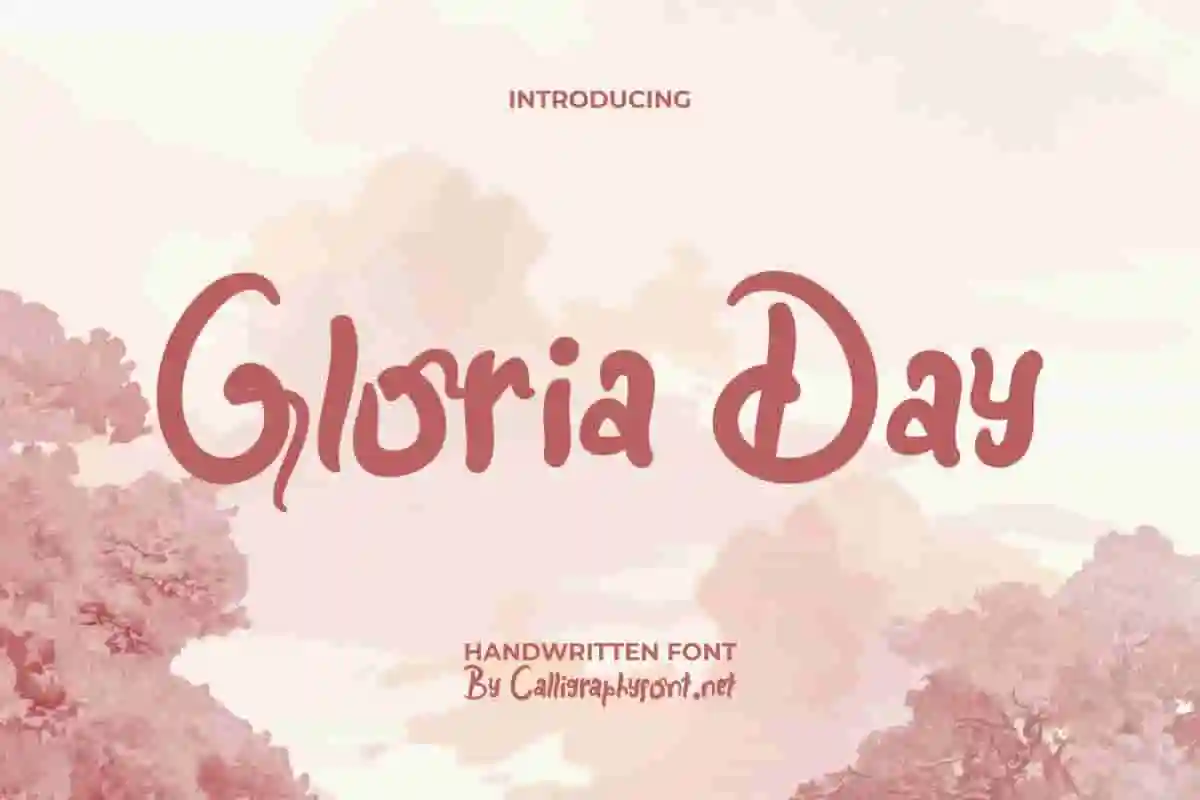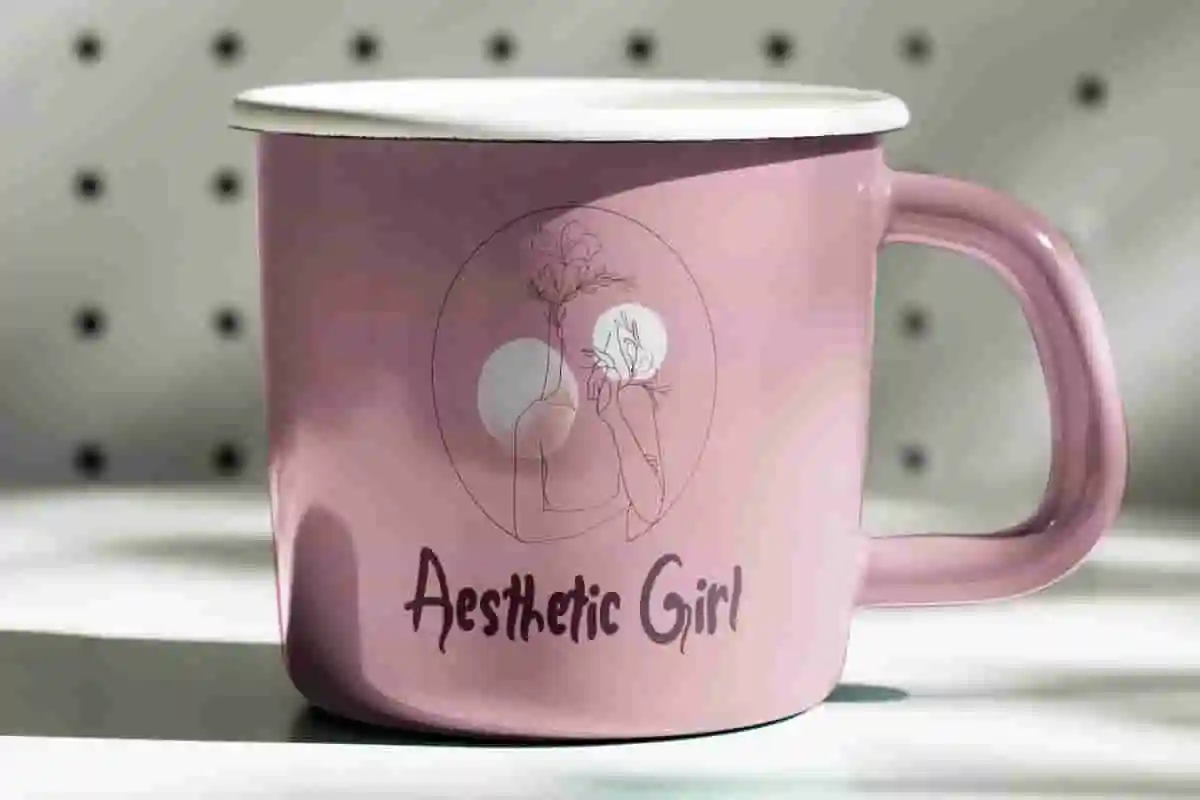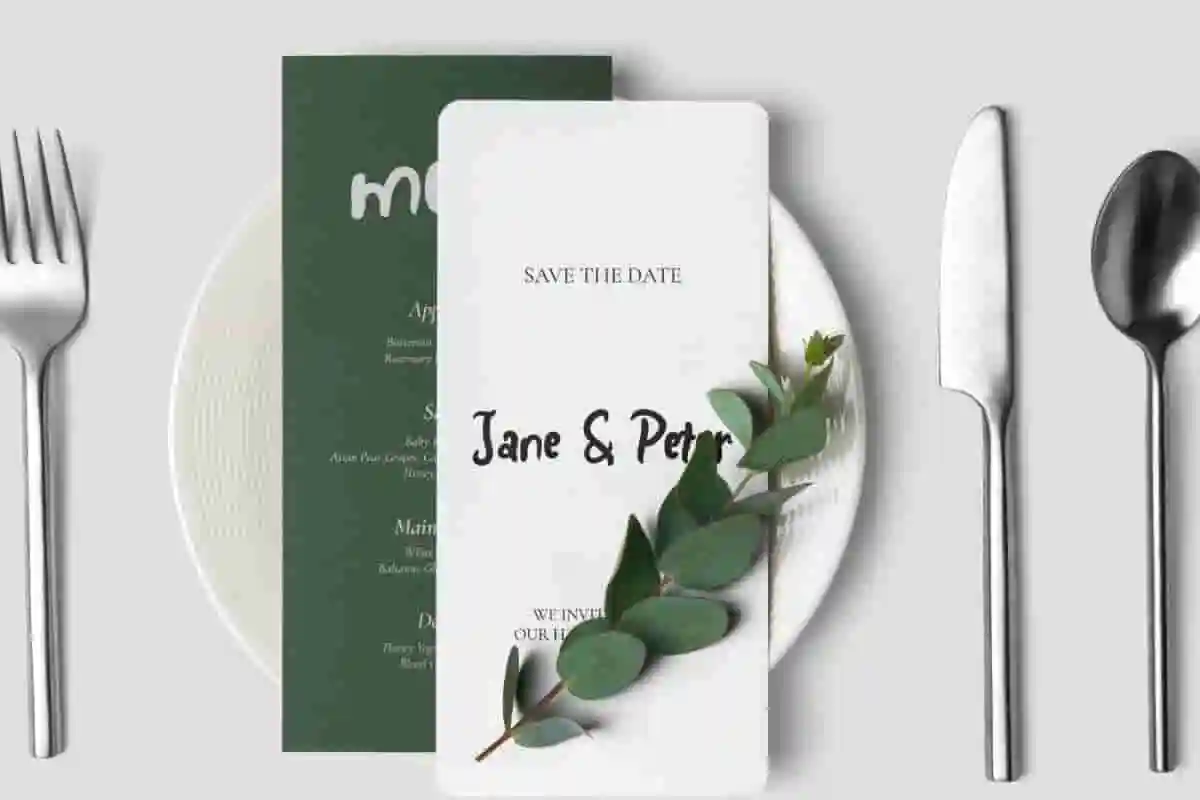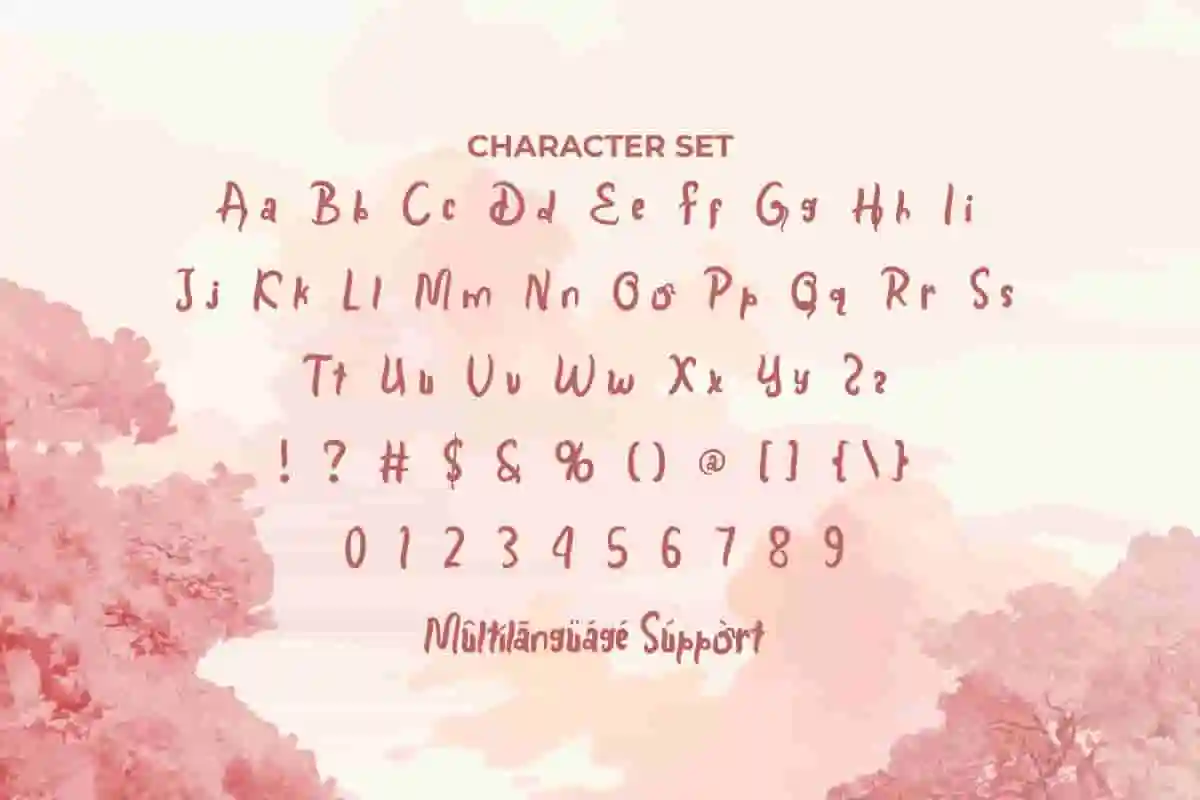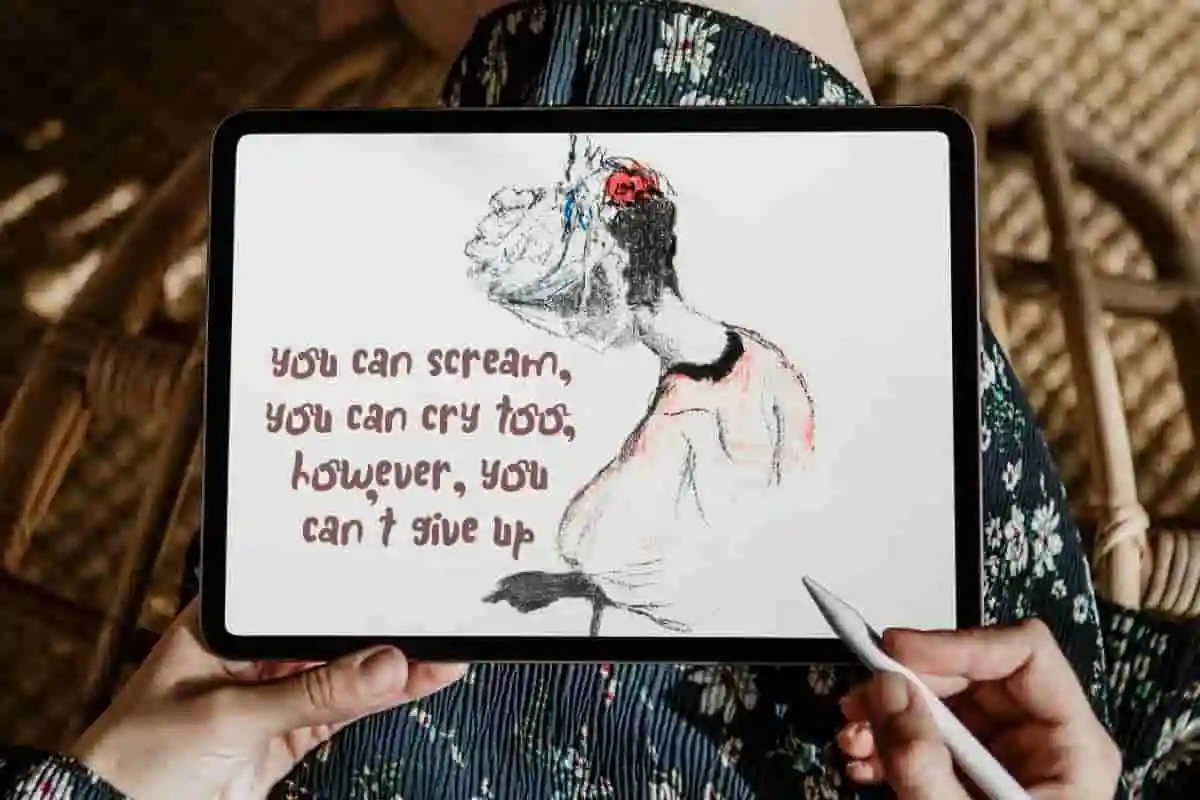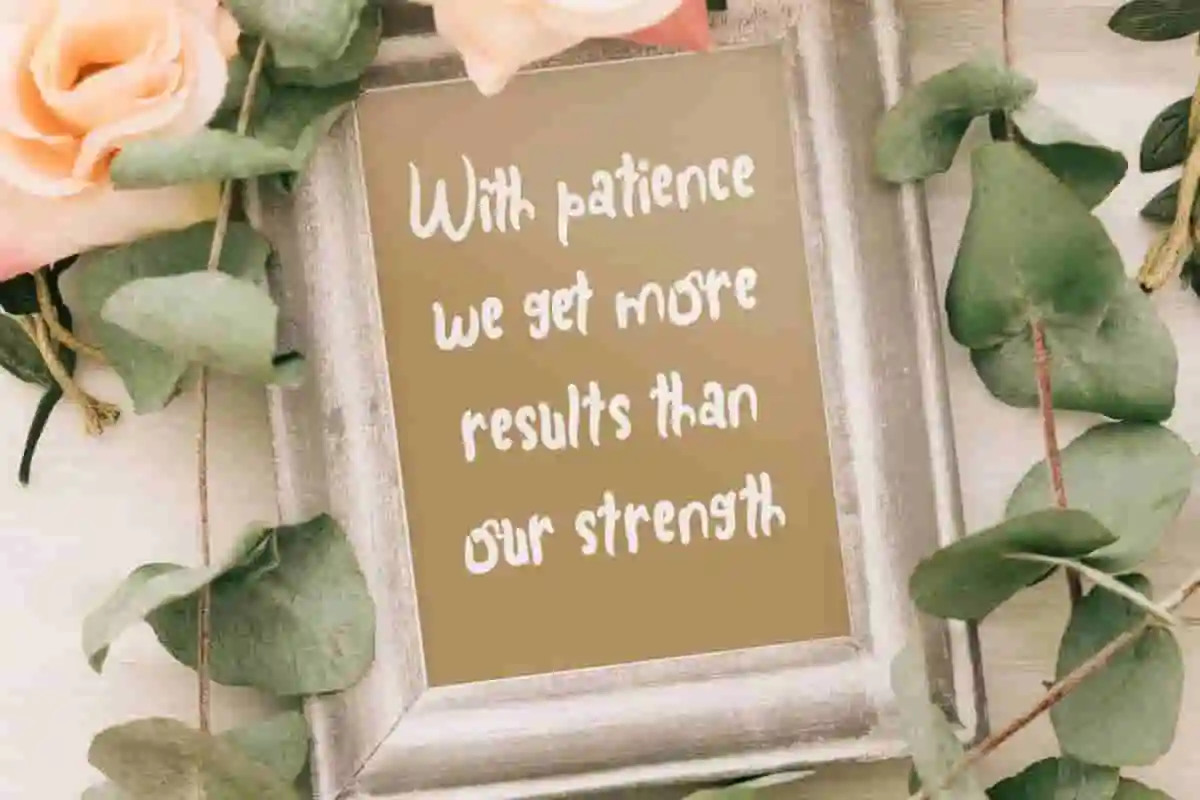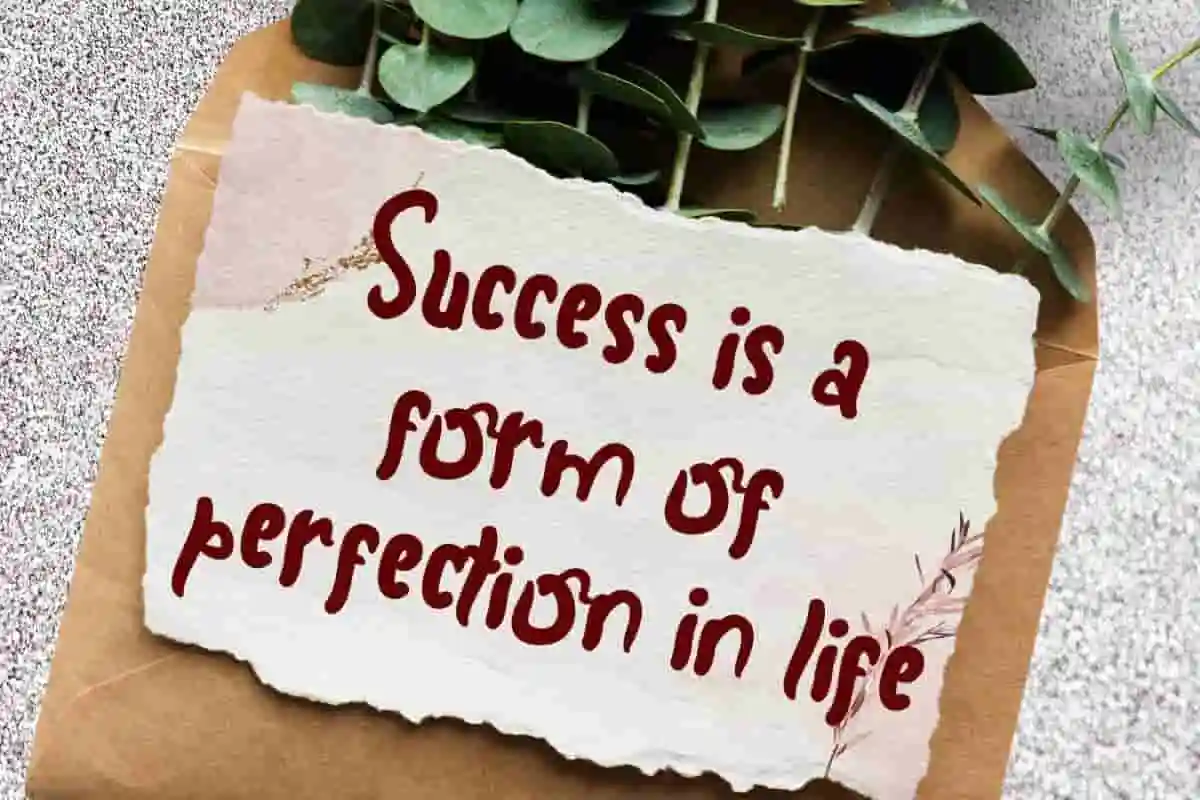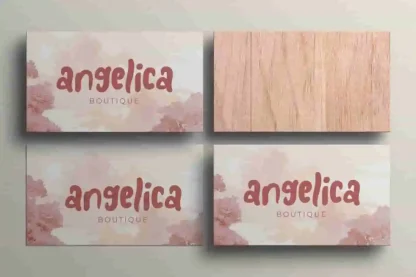
Gloria Day Handwriting Font
Gloria Day Font is a unique and playful handwritten font with a natural, slightly messy style. The font will bring you an unusual variety looks, especially for business card, invitation, posters, and more!
Gloria Day Font is a unique and playful handwritten font with a natural, slightly messy style. It will be perfect to perfect any project, such as brand logo, brochure, cover, custom design, flyer, invitation, label, menu, poster, screen print, signage, social media post, stationery, sticker, thank you card, title, website, and other things that require a sweet touch.
Bring warmth and charm to your designs with Gloria Day Handwriting Font, a beautiful and sophisticated handwritten font that adds a touch of elegance and personality to every project. Perfect for wedding invitations, greeting cards, branding, social media posts, and more, this font captures the natural flow and grace of authentic handwriting. Designed with smooth, flowing strokes and delicate details, Gloria Day creates an inviting and heartfelt vibe that connects deeply with your audience.
Discover the beauty of natural handwriting with Gloria Day Handwriting Font, a graceful and refined handwritten typeface that brings warmth and elegance to your creative projects. Whether you’re designing wedding invitations, branding materials, social media posts, or personal stationery, this font adds an intimate, heartfelt touch. Crafted with flowing strokes and delicate curves, Gloria Day mimics genuine handwriting, giving your designs a personal and sophisticated feel.
Add a natural and elegant flair to your designs with Gloria Day Handwriting Font, a beautifully crafted handwritten typeface that blends sophistication with a personal touch. This font is perfect for anyone looking to add warmth and authenticity to wedding invitations, branding, greeting cards, blogs, and social media graphics.
- Natural & Elegant Handwriting Style
The charm that Gloria Day Font has will suit and be used by many industries, such as advertisement, bakery and pastry, café, content creator, fashion, florist, kids stuff, food and beverages, graphic design, handicraft, homeware, interior design, printing, publishing, etc.
Gloria Day Font comes with a full set of Uppercase and Lowercase Basic Characters, Number, a large range of Punctuation, and Symbol. It also comes with multilingual character support. Ready to use both on Windows machine or Mac with simple installations. It’s tested to work well in the Adobe Apps (Illustrator, Adobe InDesign, Adobe Photoshop) CorelDraw, and others. PUA Encode Characters means you can access all the characters easily – Fully accessible without additional design software.